Type Branding
Dedicated Fonts? Designated Fonts?
Many companies and brands rely on fonts to deliver a unified visual experience. Fonts appear everywhere—from internal documents to event announcements. Because fonts are essential across every brand touchpoint, they play a critical role in shaping brand identity. And for that reason, the fonts a brand chooses must be applied thoughtfully and intentionally. Here is a brief explanation of two terms that are often confused: dedicated fonts and designated fonts.
Dedicated fonts are typefaces created specifically for a brand. They embed the brand’s unique character directly into text, allowing people to recognize the brand even without a CI or BI. These fonts support differentiation from competitors and convey a consistent visual identity through typography. However, developing a dedicated font requires significant time and cost, which means not every brand can afford to create one. In these cases, brands often choose a designated font instead.
A designated font is not custom-built for a single brand. Instead, it refers to selecting an existing typeface and applying it consistently across all brand assets. While not exclusive, designated fonts still help maintain coherence across diverse media.
The 『Sandoll Gothic Neo』 Series
Within the widely trusted and frequently adopted 『Sandoll Gothic Neo』 series, 「Sandoll Gothic Neo1」 was used as a system font for global companies such as Apple, LG, and Pantech even before its official release. Despite launching in 2011, it has continued to evolve—most notably through Unicode* expansion and professional hinting**—making it one of Sandoll’s most refined typefaces.
To expand options for designated fonts, Sandoll later developed 「Sandoll Gothic Neo2」 and 「Sandoll Gothic Neo3」. With more choices available, designers naturally became more selective when choosing which font best reflects their brand image. To help guide that choice, let’s examine the impression conveyed by each typeface in the 『Sandoll Gothic Neo』 series.
*Unicode: The international standard for character encoding. 『Sandoll Gothic Neo』 Unicode (Link) expands the original 2,350 characters to 11,172 by adding 8,822 more.
** Hinting: A technique that aligns a typeface’s vector outlines to pixel grids, allowing characters to appear crisp even at small sizes or low screen resolutions.
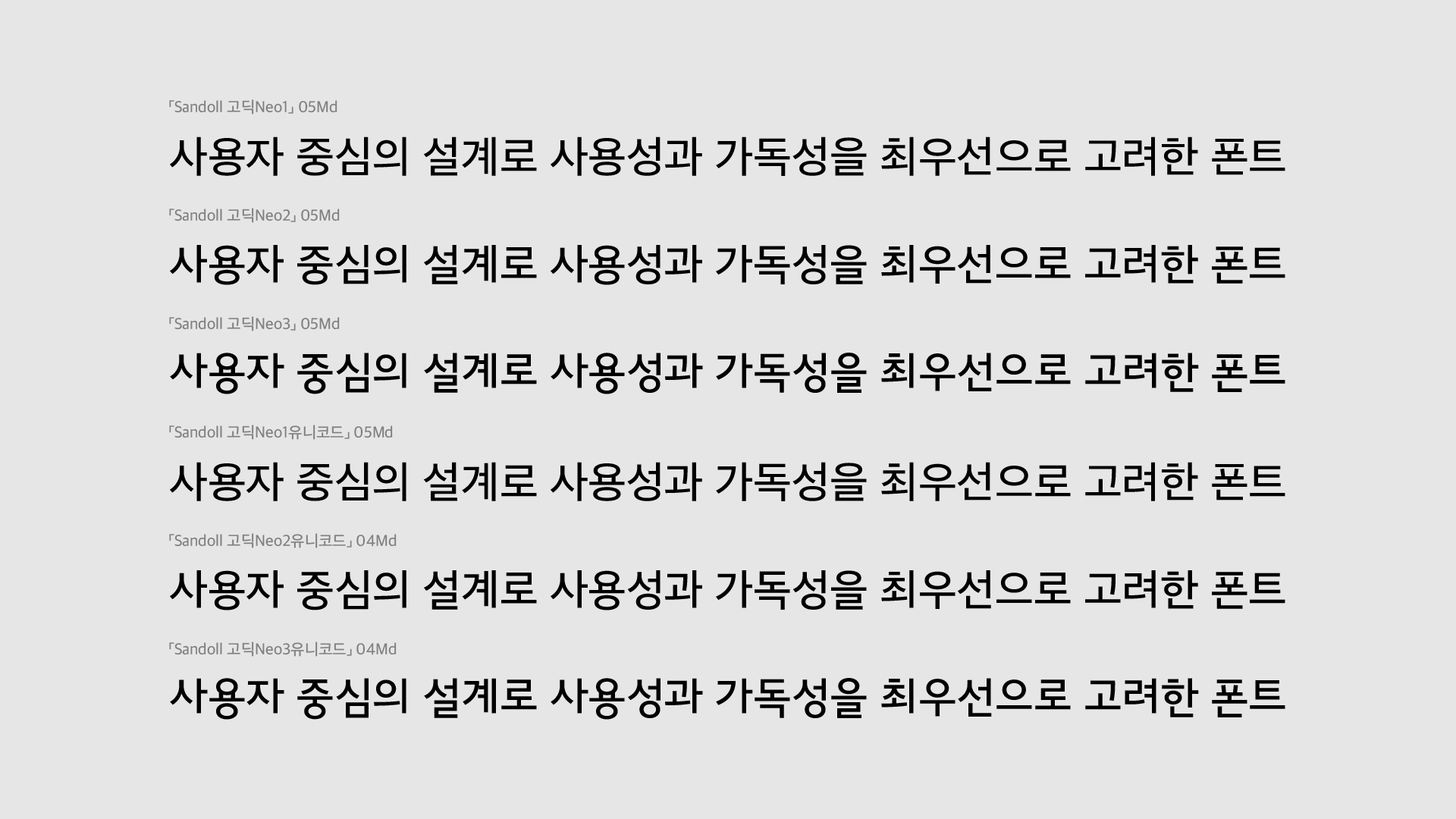
How Typefaces Express Emotion
The closer a character’s shape is to a square proportion, the less rhythmic the text feels. Conversely, as characters move away from a square structure, rhythm increases. Square-shaped forms therefore appear solid and dependable, whereas non-square forms feel lively and cheerful.
Applying this to the 『Sandoll Gothic Neo』 series, Neo1 → Neo3 shows a gradual shift toward less rigid, more dynamic forms. As the number increases, the tone becomes brighter and more energetic. A brand aiming for a friendly, spirited personality might choose 「Sandoll Gothic Neo3」. For a trustworthy and stable impression, Neo1, with its squarer forms, is a better fit. If your brand seeks a dependable yet approachable presence, Neo2 can serve perfectly as a designated font.
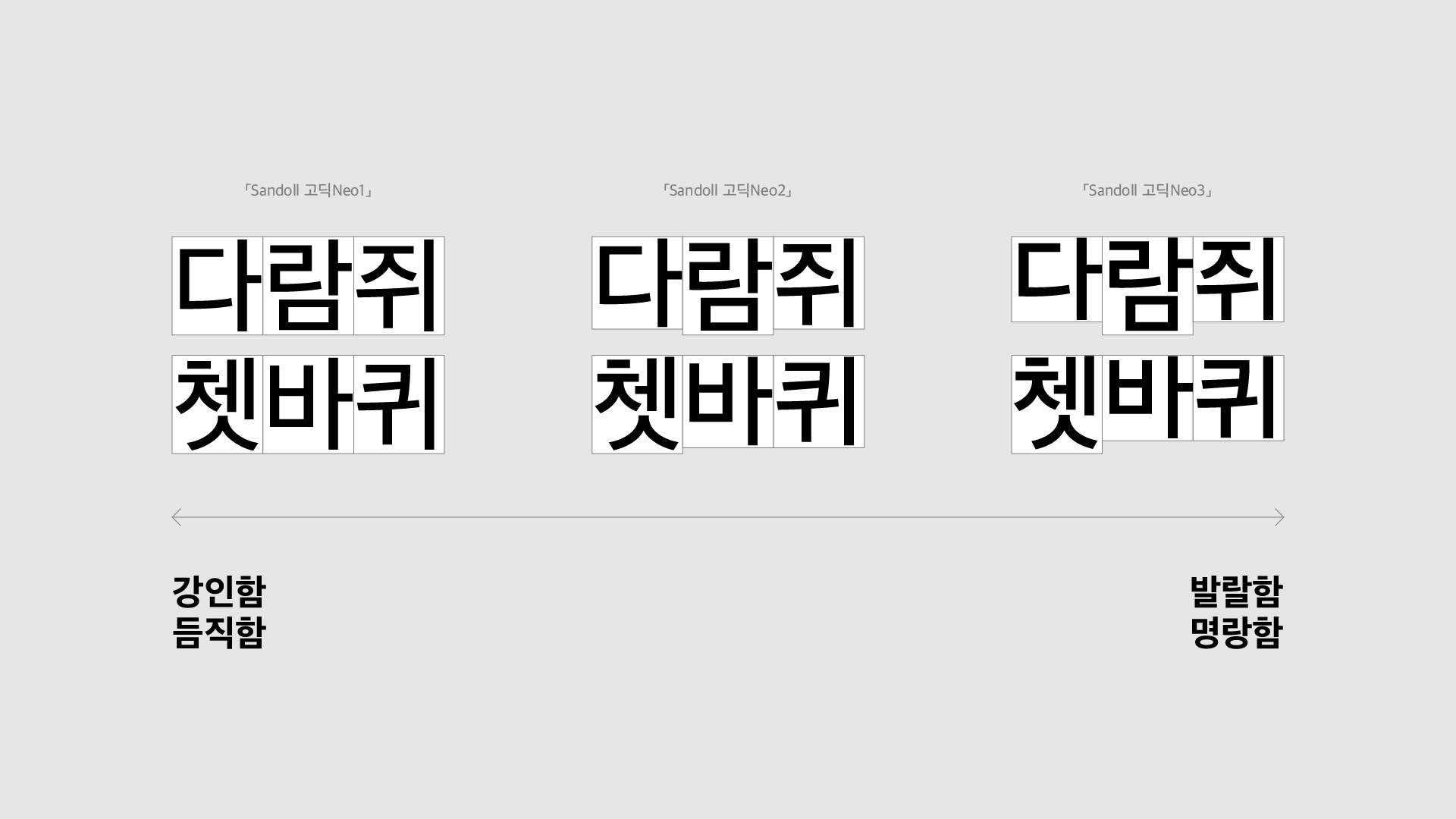
A typeface’s impression is also shaped by its baseline and x-height proportions. Fonts like Neo1, with lower letter centers, feel grounded and robust. In contrast, fonts like Neo3, with higher letter centers, convey a lighter and more buoyant tone.
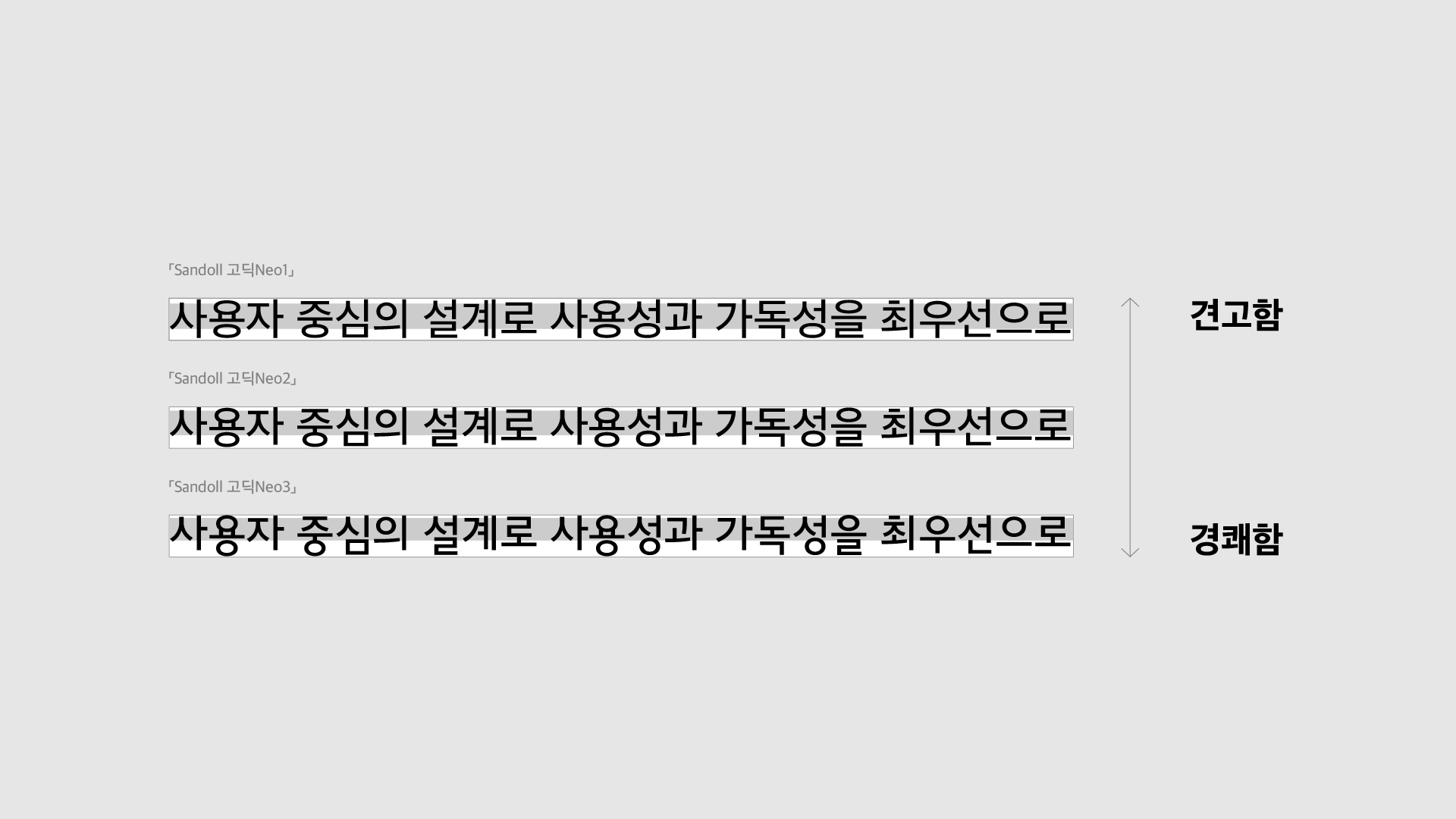
Additionally, inter-letter spacing and overall gray value influence a font’s perceived weight. Depending on how each glyph is constructed, blocks of text can read as either firm and dense or airy and light.
A New Look for NICE Group: 「Sandoll Gothic Neo2」
NICE Holdings is Korea’s leading financial infrastructure company, spanning credit evaluation, credit information, asset management, and other areas foundational to the domestic capital market. Recently, NICE Holdings completely redesigned its CI system, selecting 「Sandoll Gothic Neo2」 as the designated font across all group affiliates. Compared with Neo3, Neo2 produces a more stable text flow, and compared with Neo1, it features more pronounced curvature. As a result, Neo2 strikes a balance: it communicates reliability while also projecting a sense of modernity and creativity. Below are examples of the updated CI system across NICE Group affiliates, clearly expressing both trust and innovation.
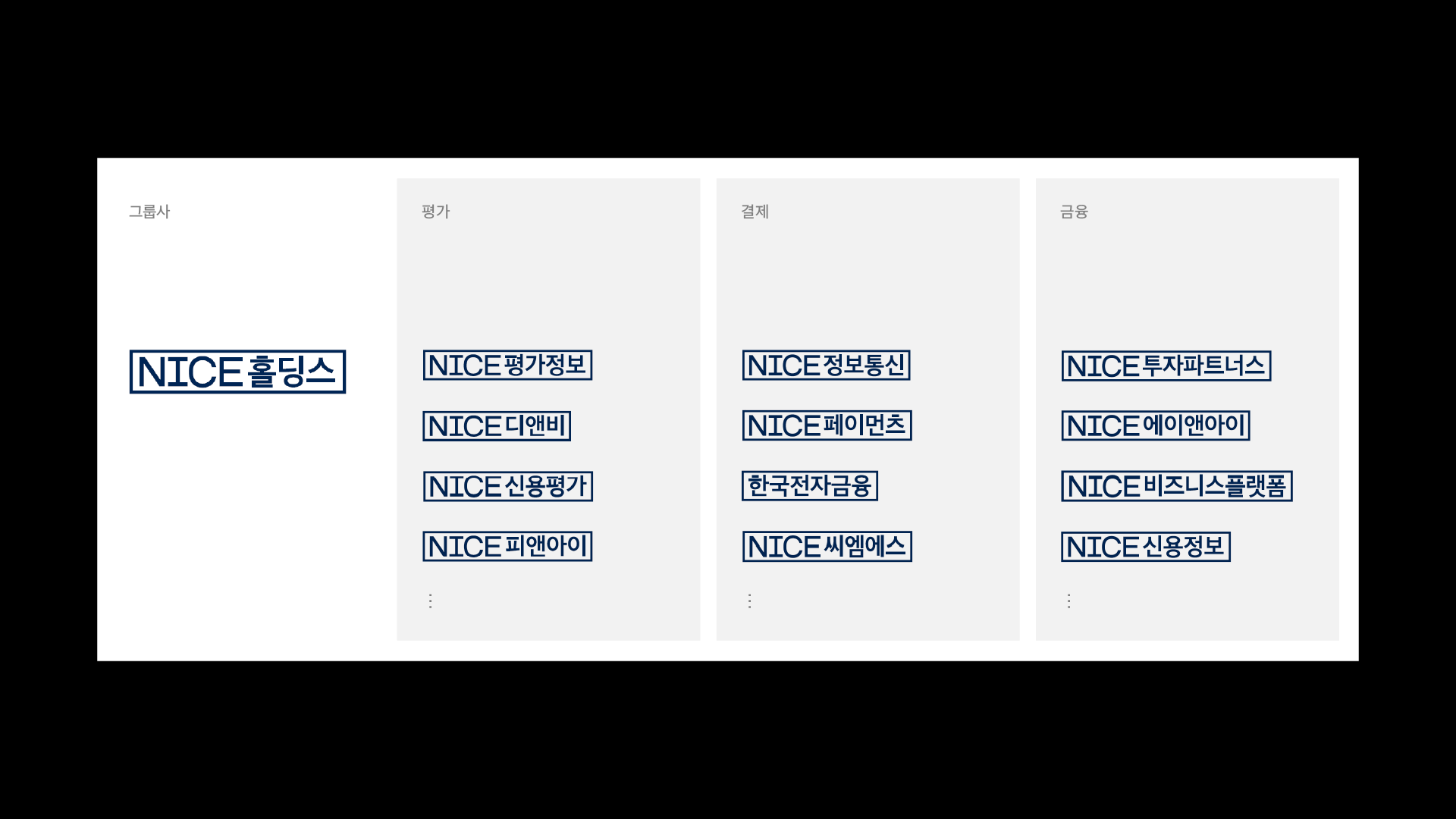
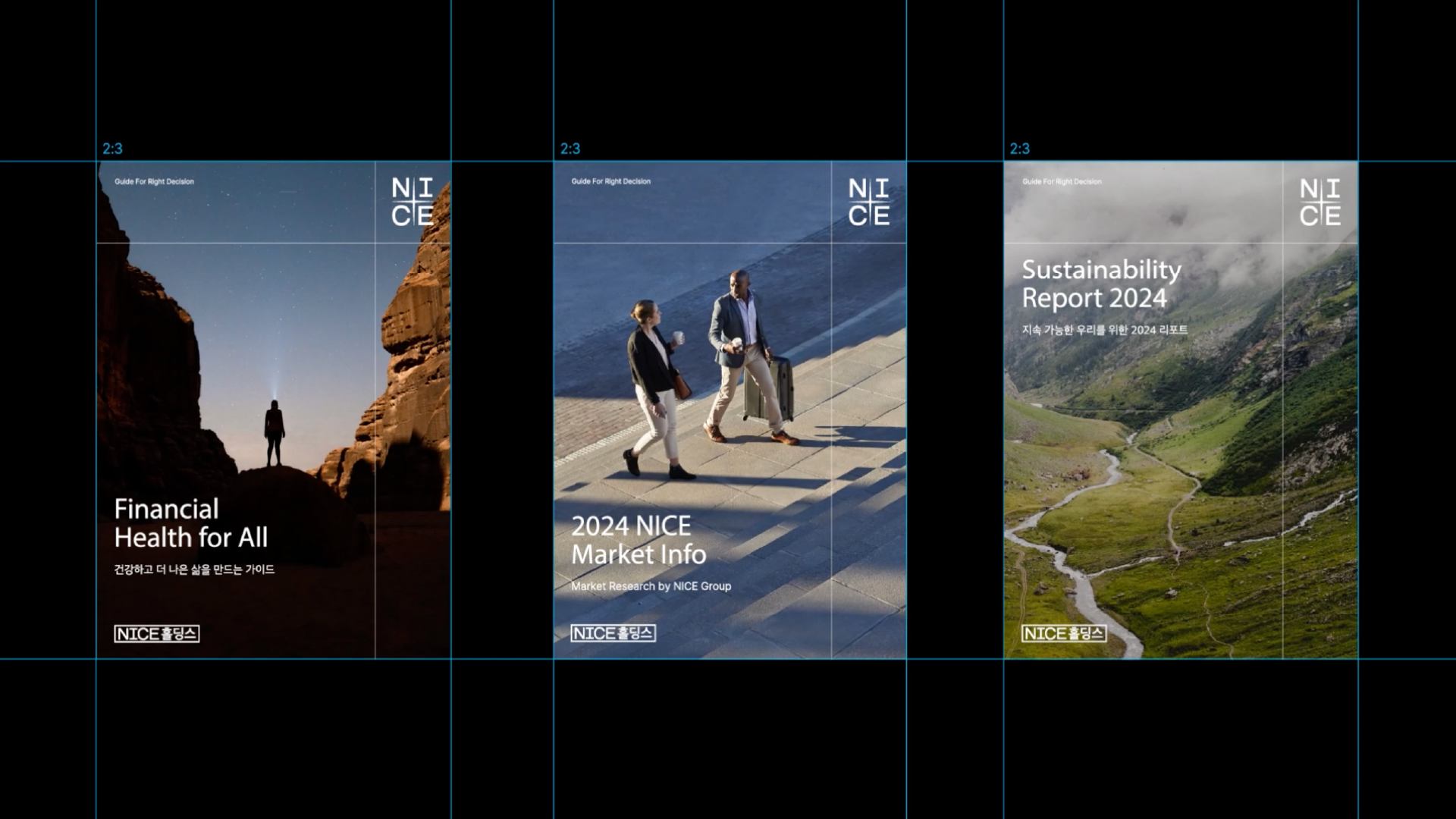
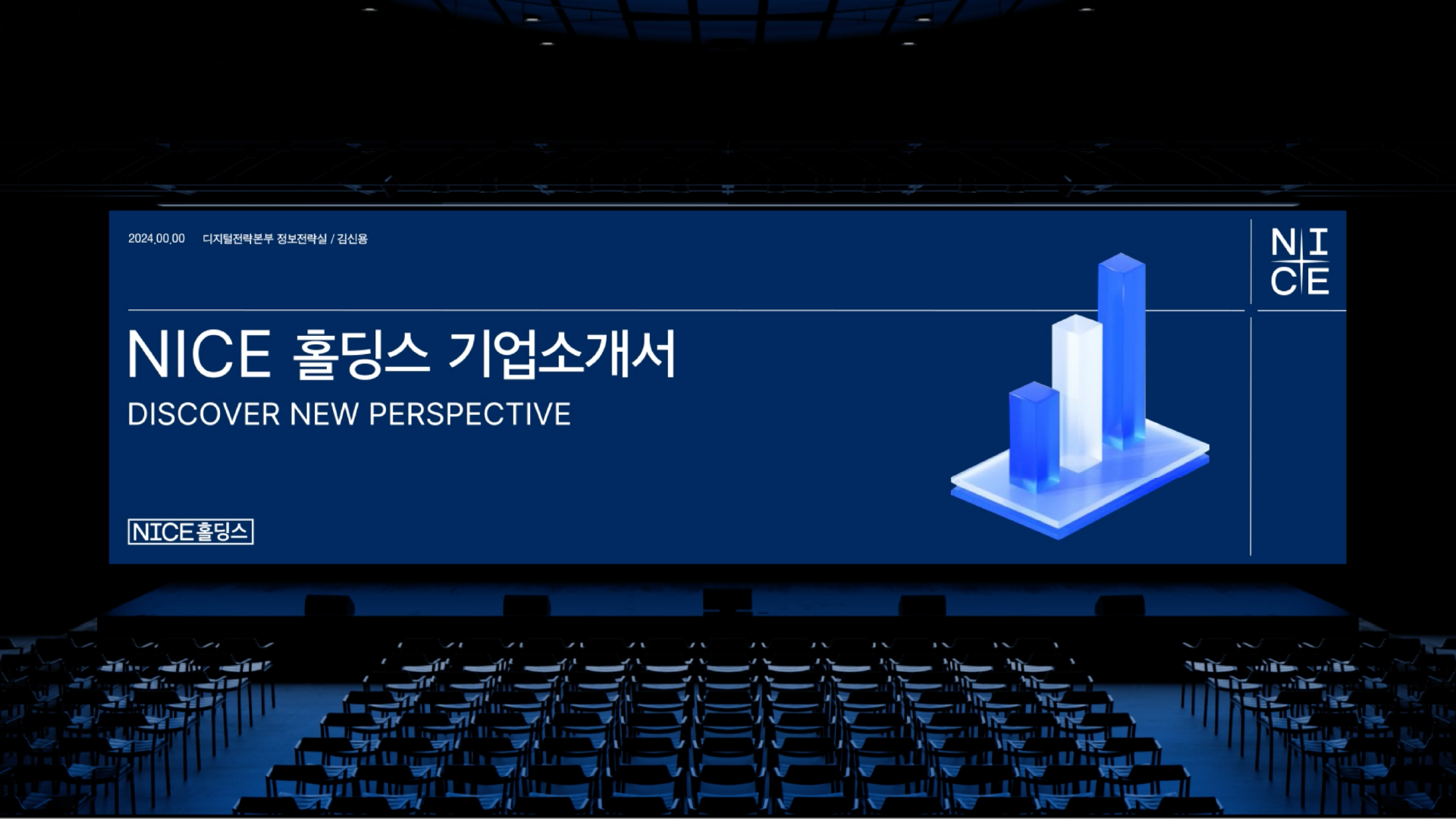
Image source: http://named-labs.com
A Tool for Expressing “Brand-ness”
Ideally, designers would oversee every brand touchpoint—but in reality, that’s rarely possible. This is why designated fonts become essential. When multiple people handle brand materials—or when non-designers produce documents—typography becomes a key mechanism for maintaining visual coherence. For example, contracts, invoices, and legal documents are typically handled by finance, legal, or sales teams—not by designers. In these cases, a designated font ensures that brand identity remains consistent across all types of documents.